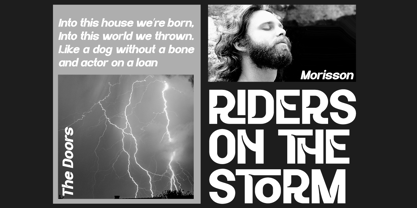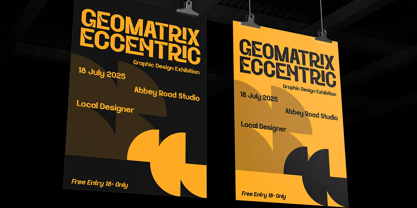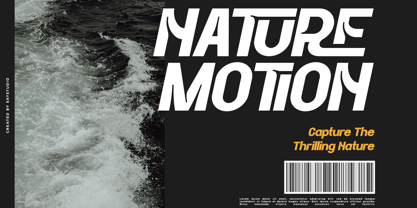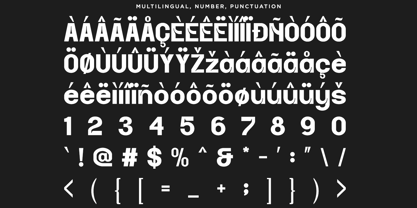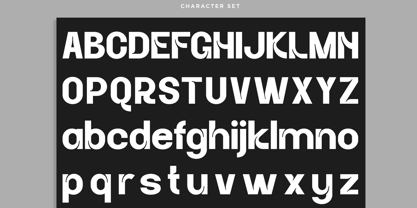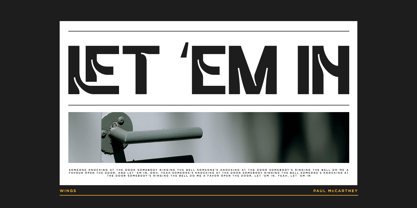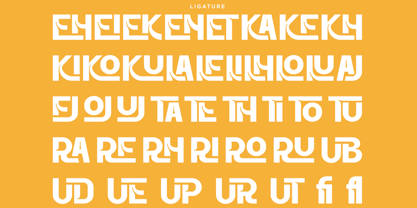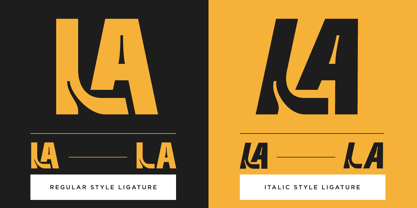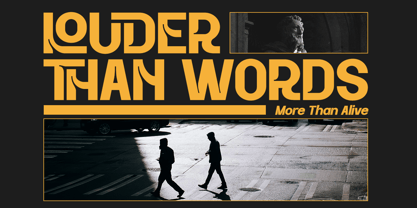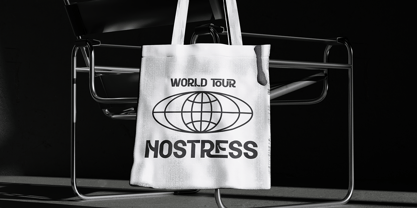
Thegora
The Thegora Font Family was designed by Mussyayin and published by Say Studio. Thegora contains 2 styles and family package options. More about this family
Thegora is a modern inktrap sans serif font designed with bold geometric forms, distinctive cuts, and an experimental typographic character. Its clean yet unconventional letterforms create a strong visual impact, making it an excellent choice for contemporary and expressive design projects.
Perfect for branding, logos, posters, editorial layouts, fashion campaigns, album covers, packaging, advertising, magazines, sports graphics, and social media designs. Thegora works especially well for bold headlines, large display typography, and visual identities that need a modern and memorable personality.
Combining geometric structure with unique inktrap details, Thegora brings a fresh and distinctive approach to modern sans serif typography. Whether you're creating a bold brand identity, creative campaign, editorial composition, or striking promotional artwork, Thegora adds a contemporary and experimental edge to your designs.
• Regular and Italic
• Stylistic Ligatures
• Inktrap Style
• Uppercase and Lowercase
• Number, Symbol, and Punctuation
• Multilingual Support